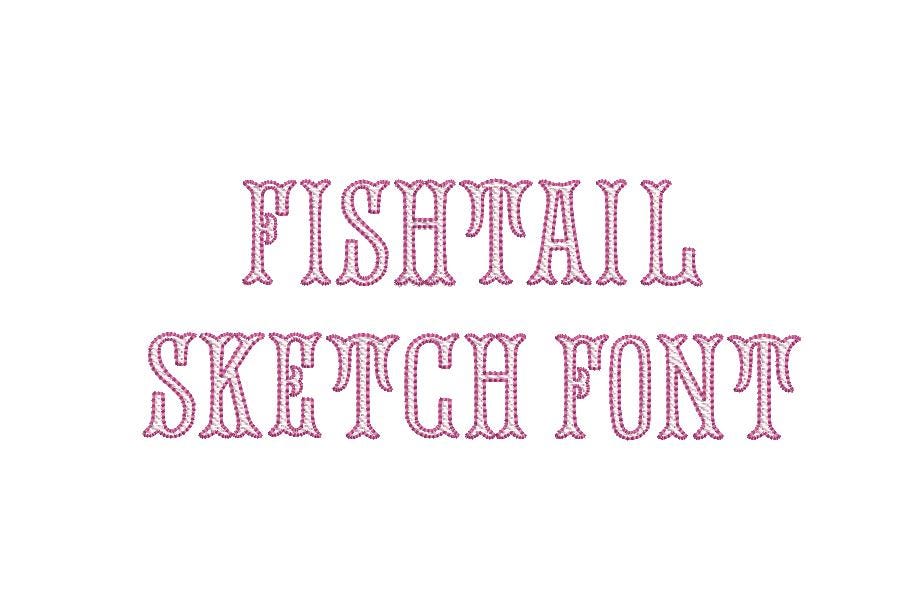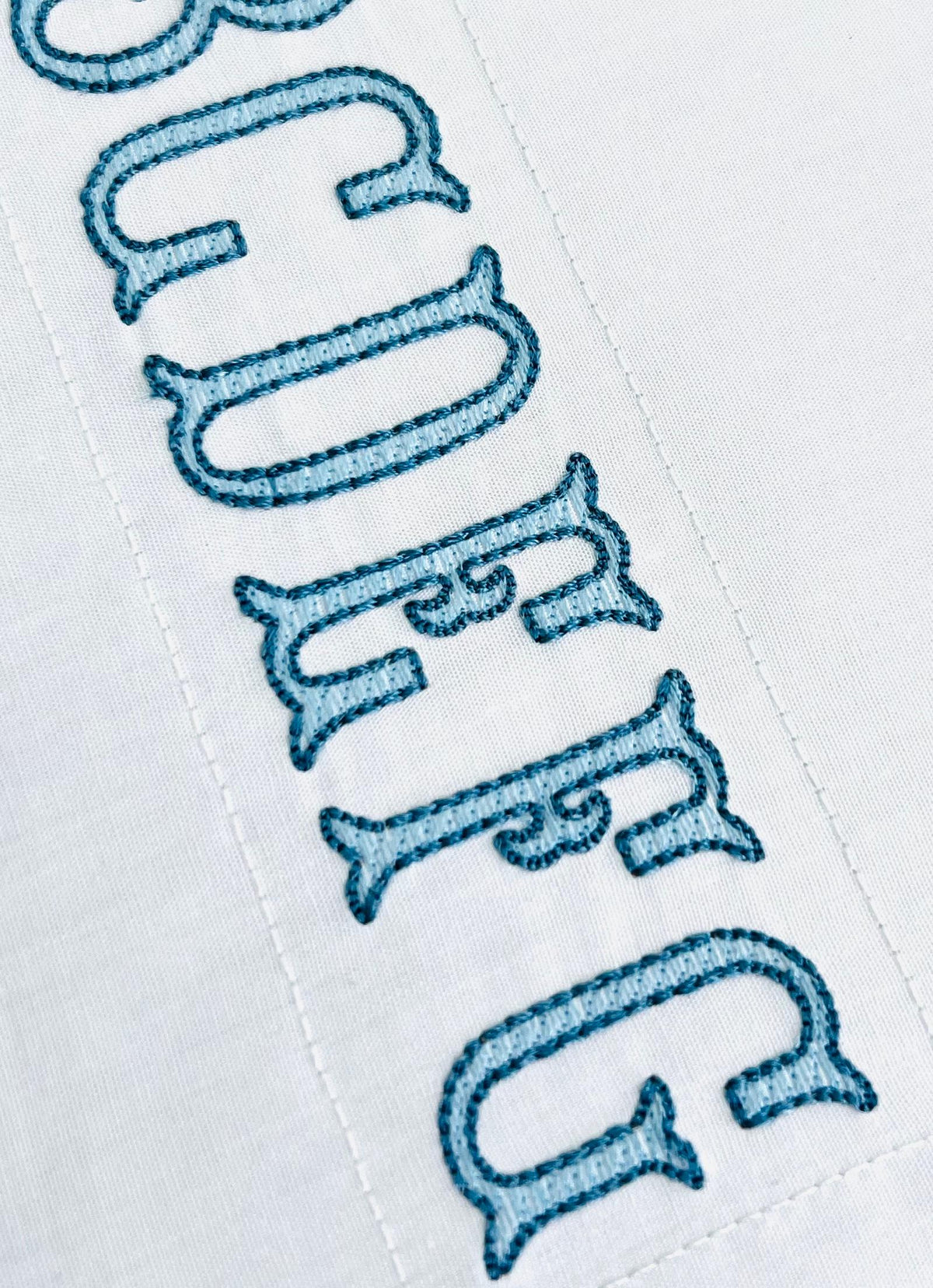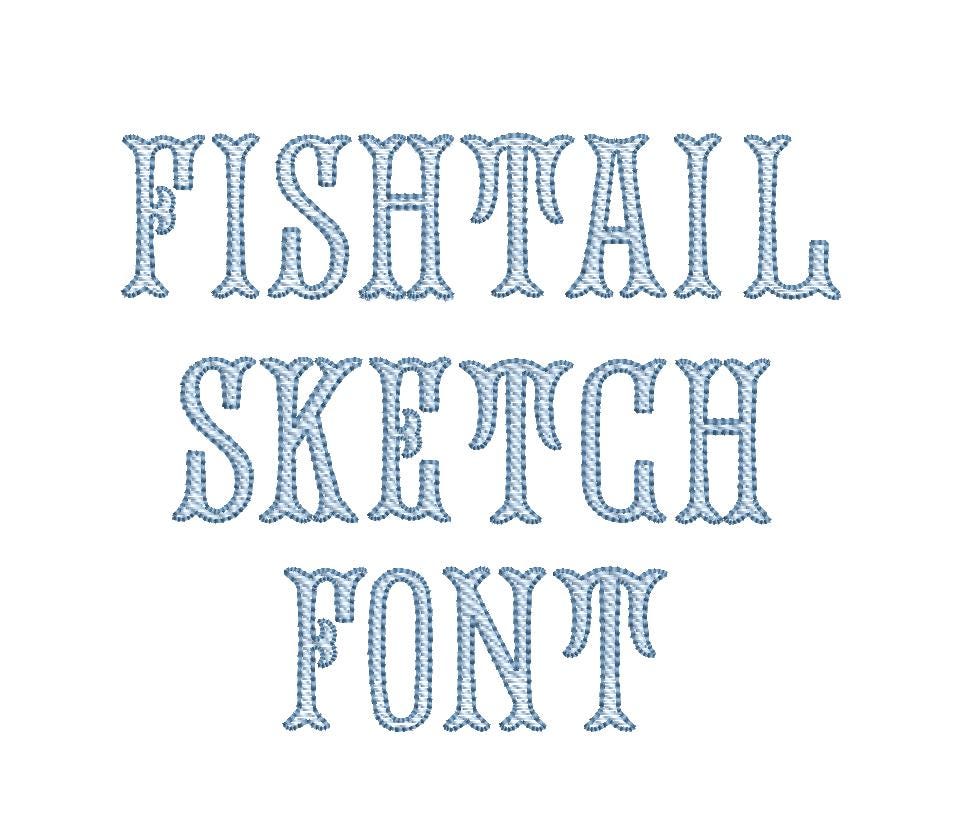
This is a DIGITAL instant download only of an all capital letter Fishtail Sketch Fill and Bean Stitch Outline font machine embroidery design. Offered in 8 sizes, 8 Machine Formats and BX mapped files! Crazy cute and gender neutral making it perfect for embroidering on just about anything!